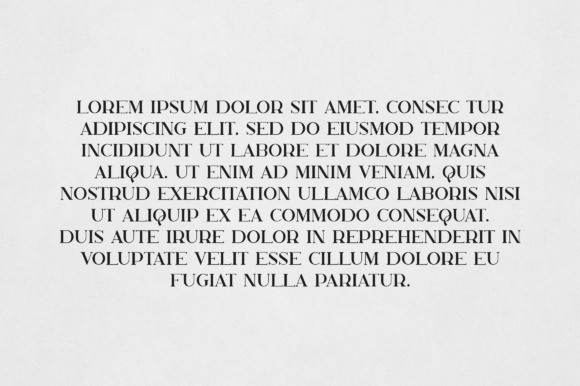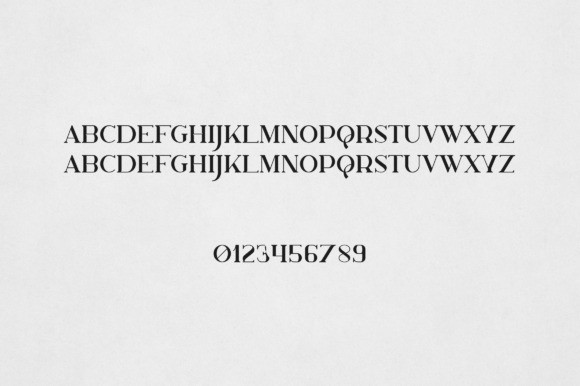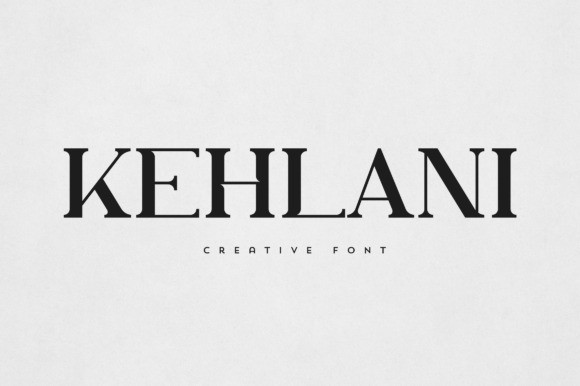
Kehlani Font
Kehlani Font is an elegant and versatile serif font that will make your typography truly unique! It will enchant every logo, branding, headline, or plain text!